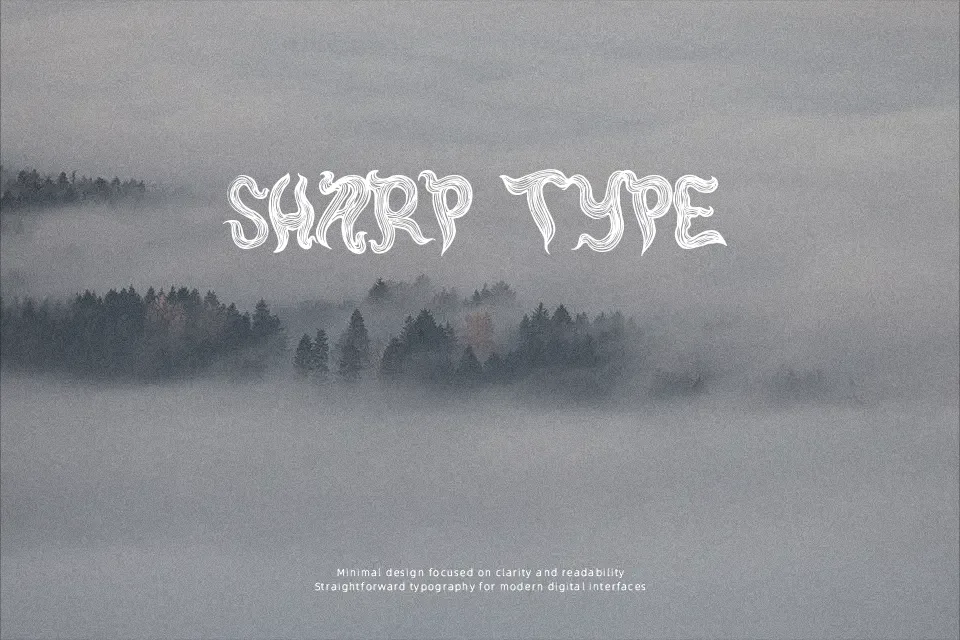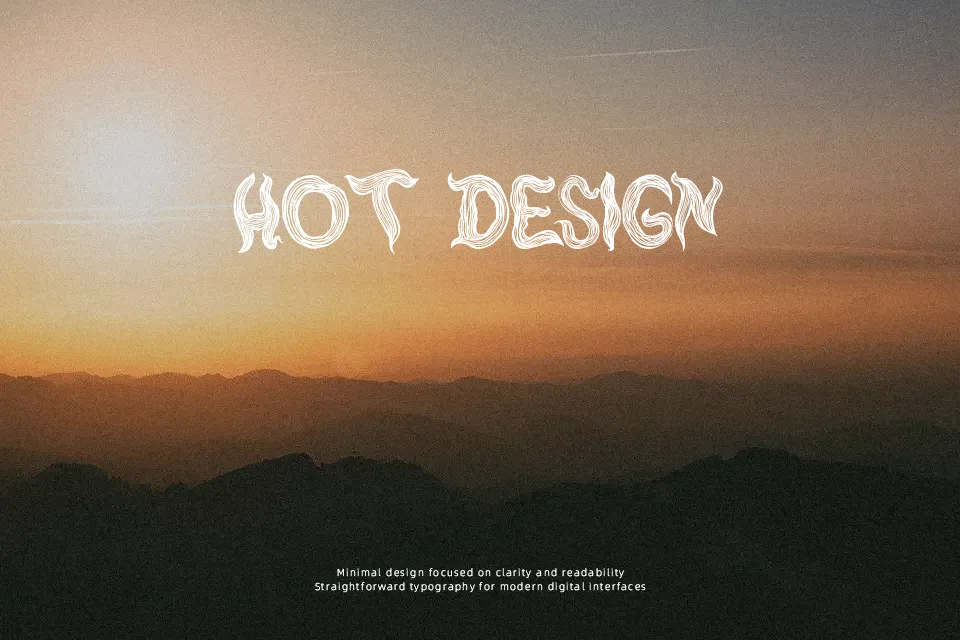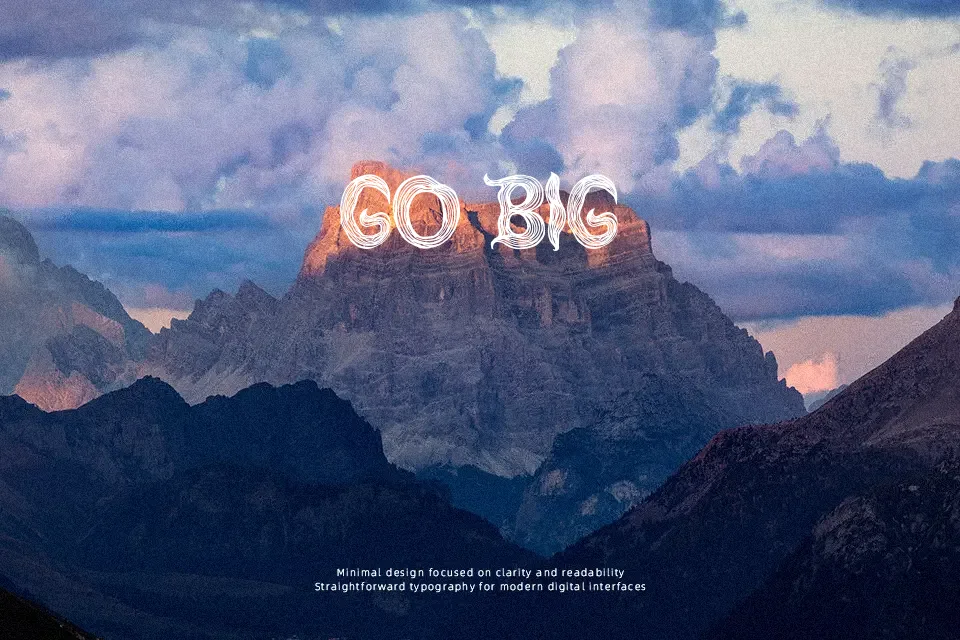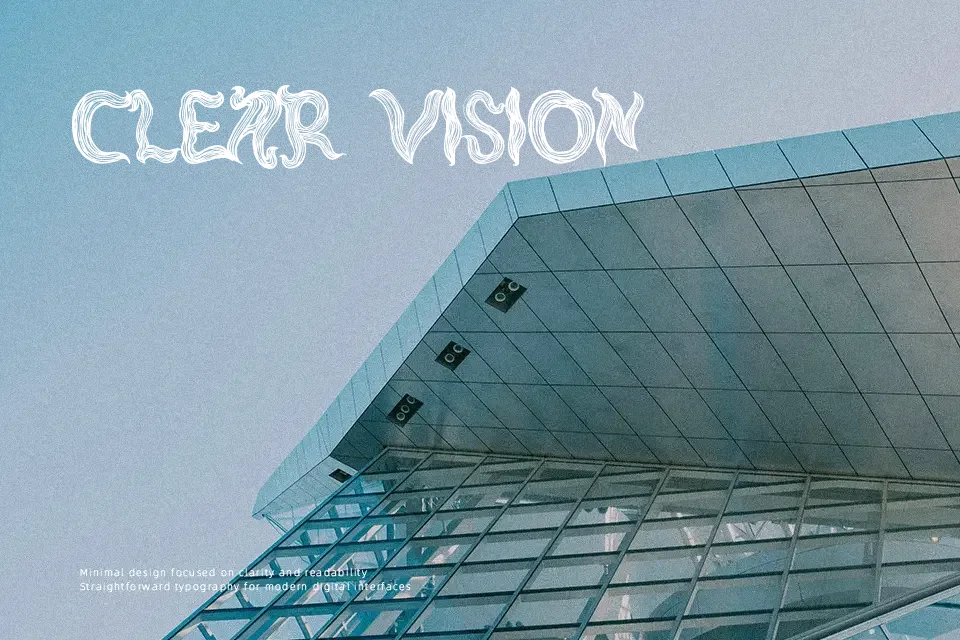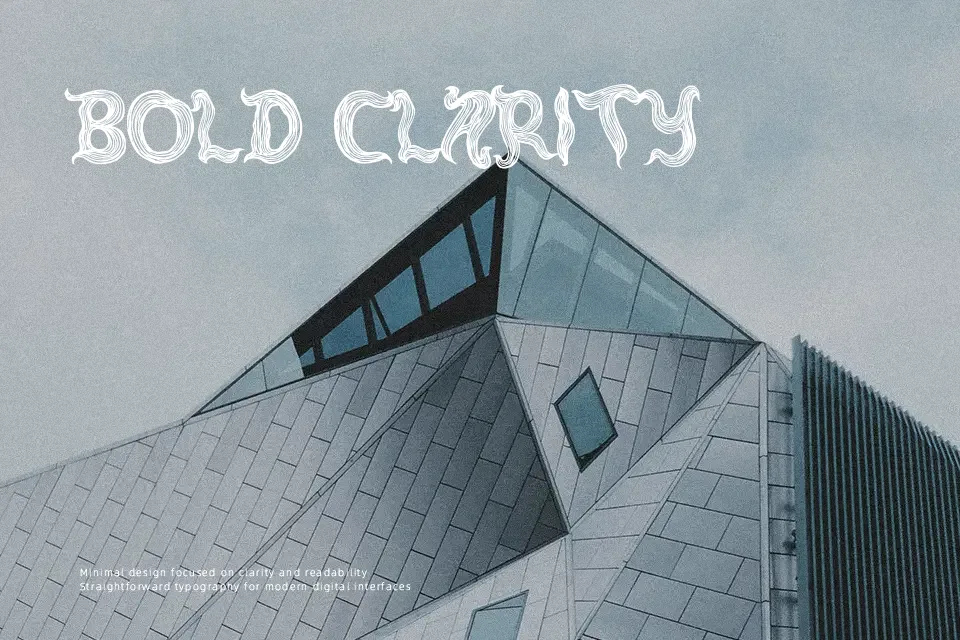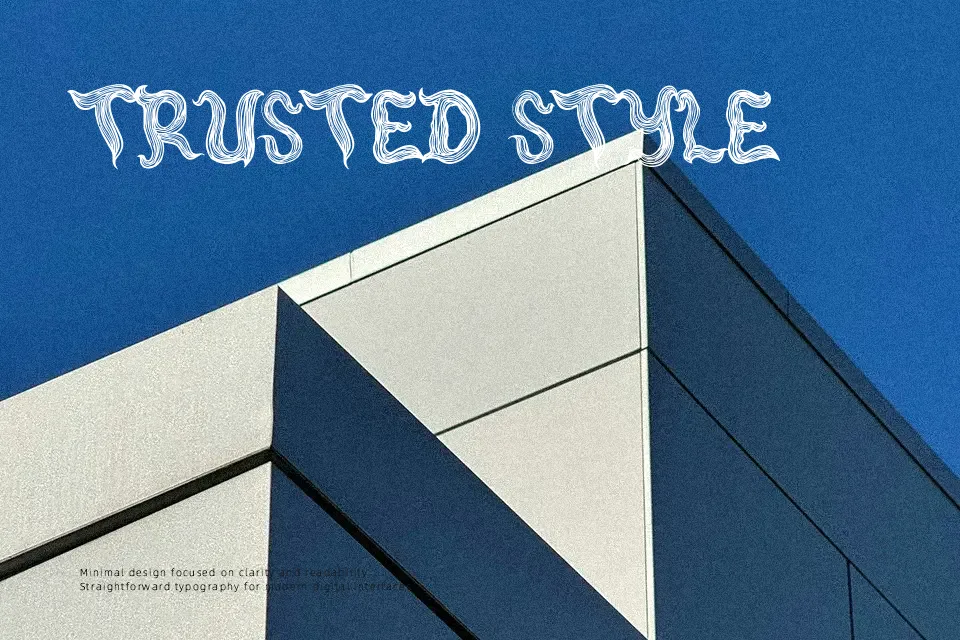
Rambut Kusut Font
Designed by tups
Rambut Kusut Font features an expressive, twisted structure that adds an energetic and messy charm to display typography. The letterforms are defined by their complex, curly strokes and irregular proportions, creating a distinct visual rhythm that feels completely organic. Because of the intricate loops and tight internal spacing, the design performs best when displayed at larger sizes where the decorative details can truly stand out. The overlapping lines add a playful texture to creative branding or event posters. However, these same intricate details mean the letterforms remain difficult to distinguish in small interface labels or dense editorial layouts. This typeface is highly effective for short, impactful text rather than continuous reading.
quirky apparel graphics
creative poster headlines
playful social media banners
artistic album covers
spreadsheet data
Perfect for branding, headline, and poster, with a artistic and decorative style.